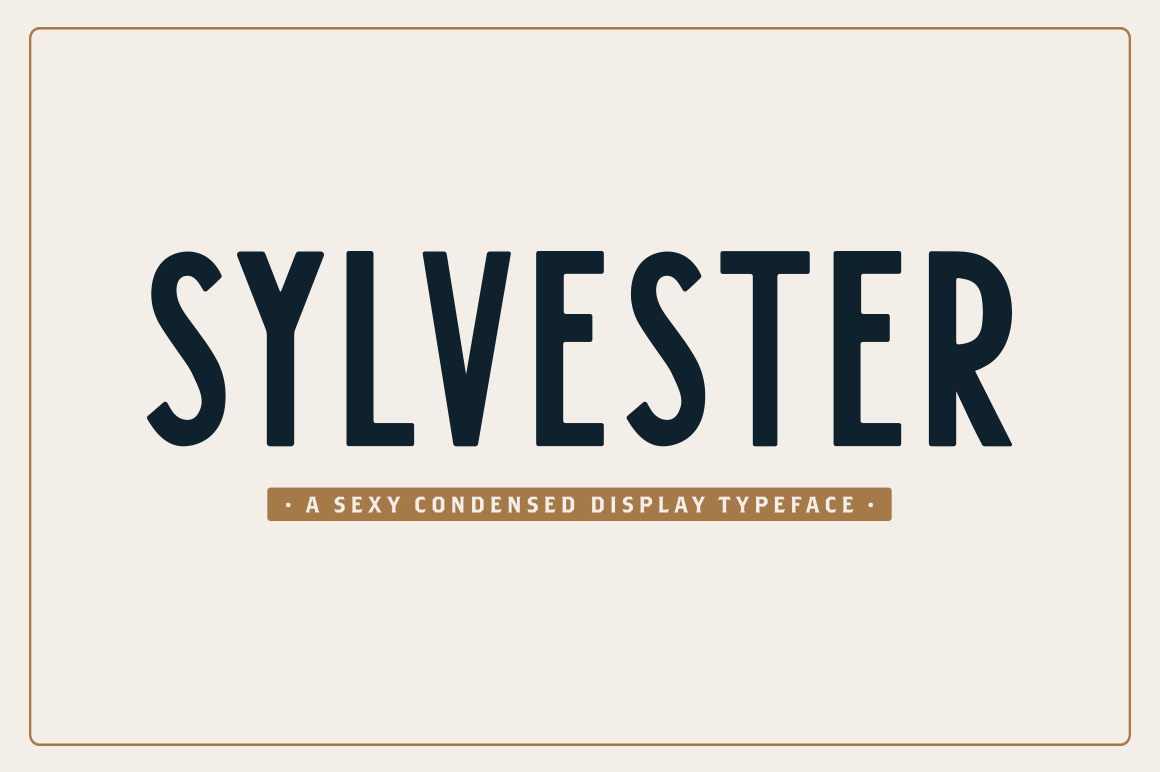
Sylvester Typeface
Birthed from vintage signs, cigar boxes, and classic lettering, Sylvester blends a mid-century modern aesthetic with influences of vintage typography.
- All Caps typeface